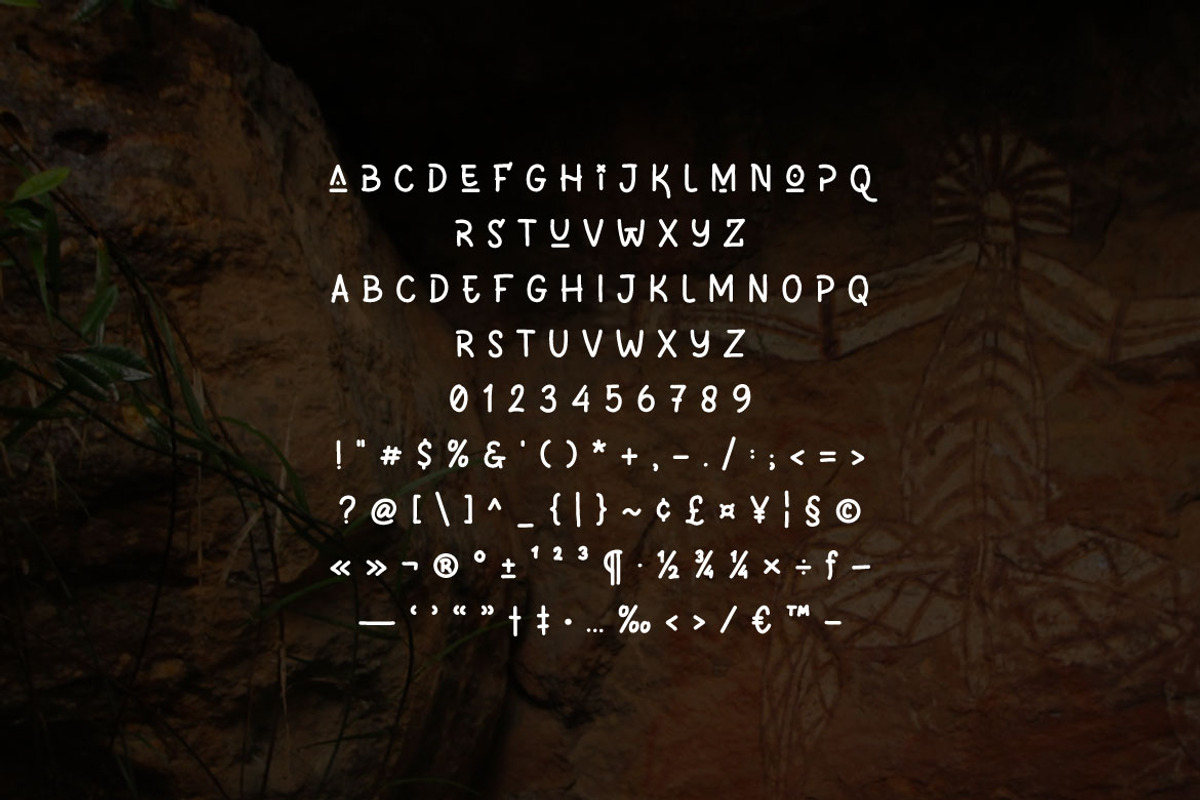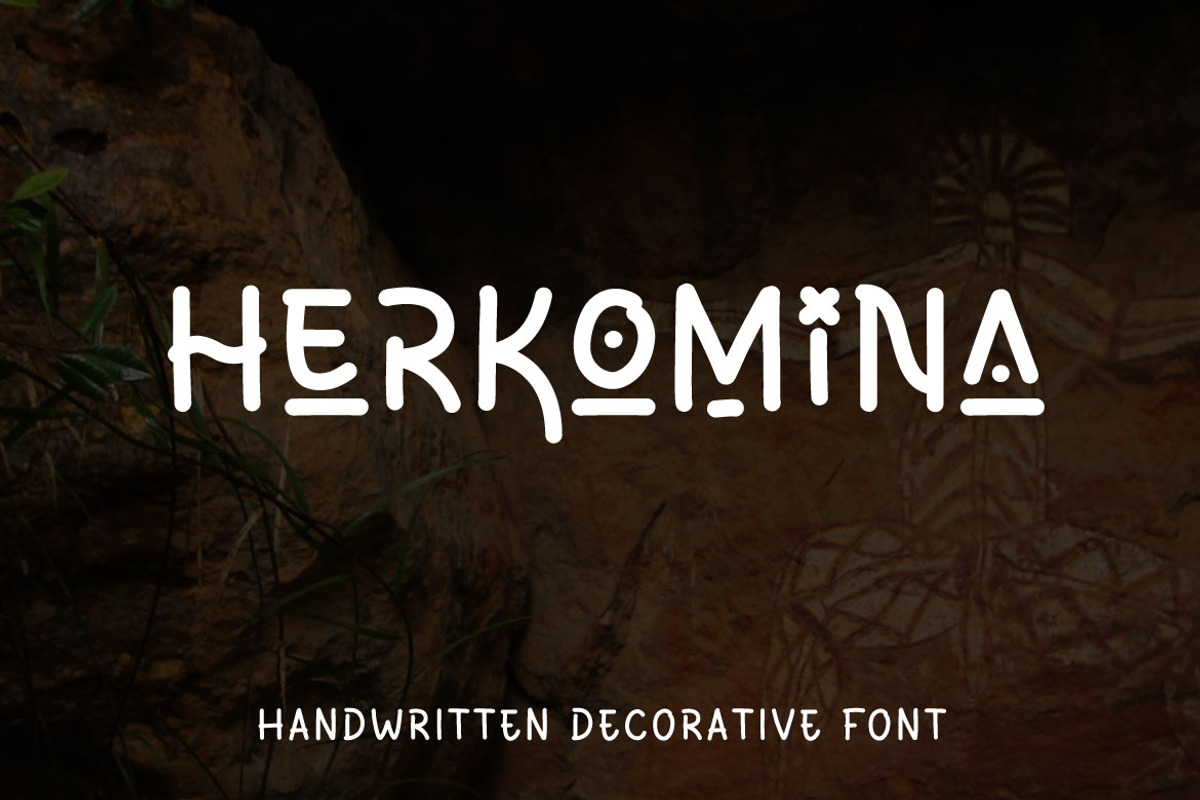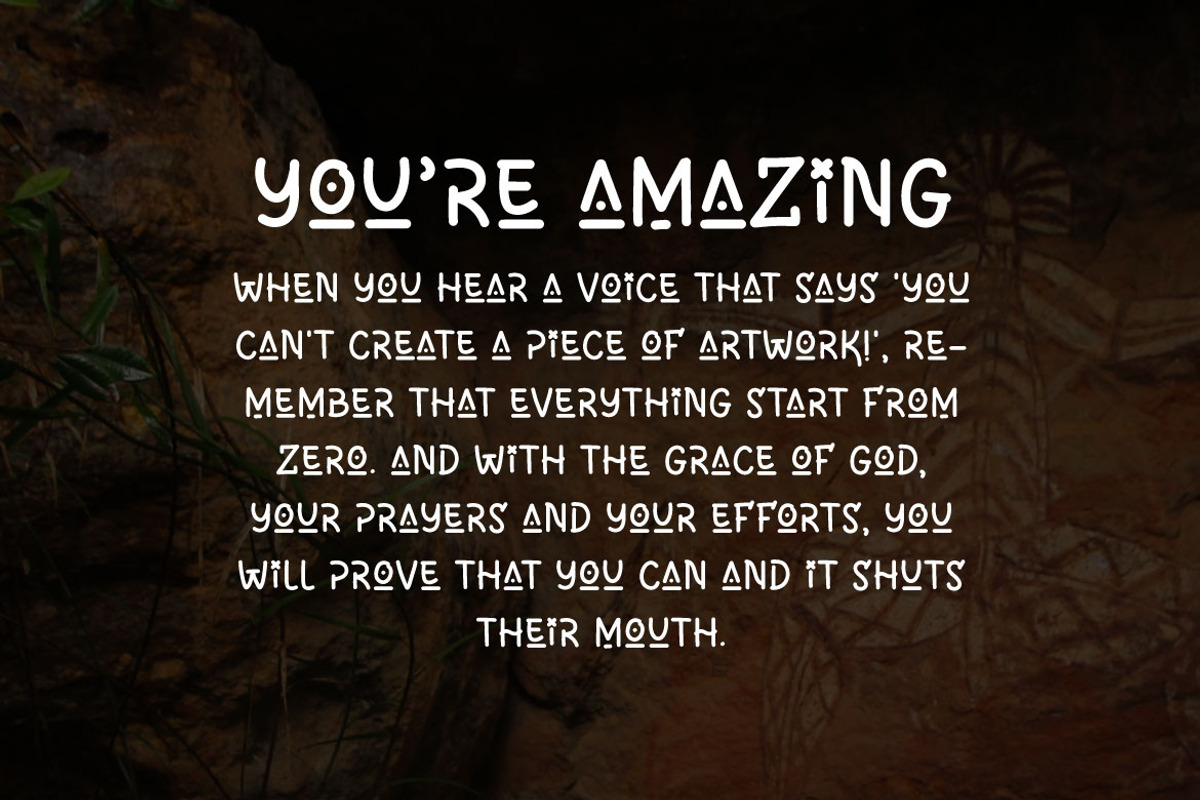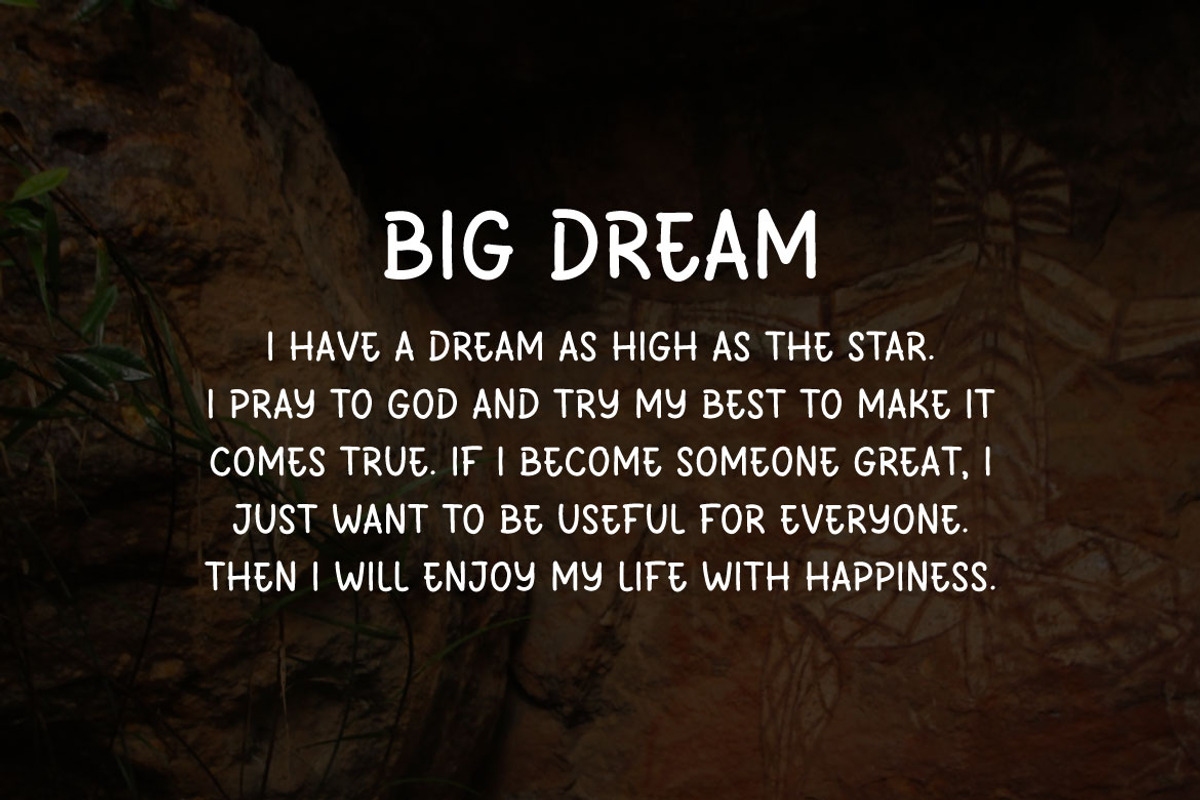
Herkomina - Handwritten Decorative
Hello! looking for a decorative font? Herkomina is here! Herkomina can be used in any works such as logo, wall art, apparel branding, team logo and many more.